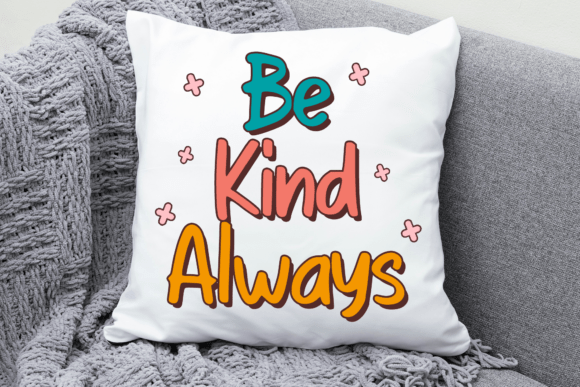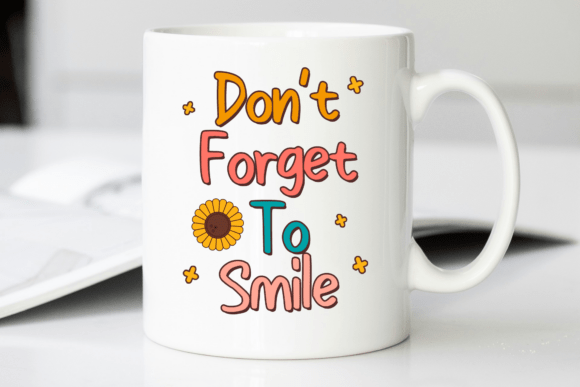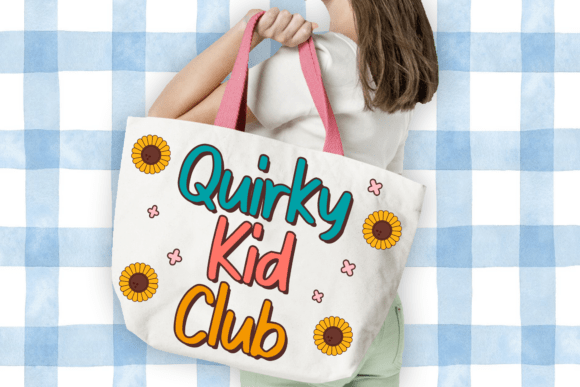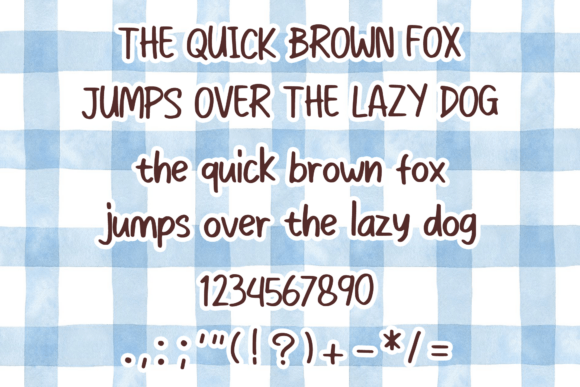
Baby Magic Font: The Ultimate Comic Font for Playful Designs
Are you a designer or crafter looking for a font that can add a touch of playfulness and cuteness to your designs? Look no further than the Baby Magic Font! This fun and versatile comic font is perfect for a wide range of design projects, from stickers and t-shirt designs to logo creations and book covers.
What is Baby Magic Font?
Baby Magic Font is a carefully crafted comic font that exudes a sense of fun and playfulness. Its unique and quirky design makes it perfect for designs that require a touch of whimsy and humor. The font is highly legible and can be used for both short and long texts, making it a versatile choice for various design projects.
Key Features of Baby Magic Font
• Playful and Cute Design: Baby Magic Font boasts a unique and adorable design that is sure to capture the attention of your audience.
• Highly Legible: The font is carefully crafted to ensure that it remains clear and readable, even at small sizes.
• Versatile: Baby Magic Font can be used for a wide range of design projects, from stickers and t-shirt designs to logo creations and book covers.
Design Ideas with Baby Magic Font
Baby Magic Font is a versatile font that can be used for a wide range of design projects. Here are some ideas to get you started:
• Stickers: Create fun and playful stickers for kids’ parties, events, or everyday use.
• T-Shirt Designs: Design eye-catching t-shirts for kids and adults alike with Baby Magic Font.
• Logo Designs: Create memorable and adorable logos for businesses, events, or products.
• Magazine or Book Covers: Use Baby Magic Font to create eye-catching covers for magazines, books, or comics.
• Comics and Cartoon Drawings: Add a touch of playfulness to your comics and cartoon drawings with Baby Magic Font.
• Daily Typing: Use Baby Magic Font for everyday typing, such as creating fun and playful notes or cards.
Why Choose Baby Magic Font?
So, why should you choose Baby Magic Font for your design projects? Here are just a few reasons:
• Unique Design: Baby Magic Font boasts a unique and adorable design that will set your designs apart from the rest.
• Versatile: Baby Magic Font can be used for a wide range of design projects, making it a great addition to your font library.
• High-Quality: The font is carefully crafted to ensure that it is of high quality and suitable for professional designs.
In conclusion, Baby Magic Font is a fun, playful, and cute comic font that is perfect for designers and crafters looking to add a touch of whimsy and humor to their designs. With its unique design, high legibility, and versatility, Baby Magic Font is sure to elevate your design projects to the highest level. So, why wait? Download Baby Magic Font today and start creating adorable and eye-catching designs!